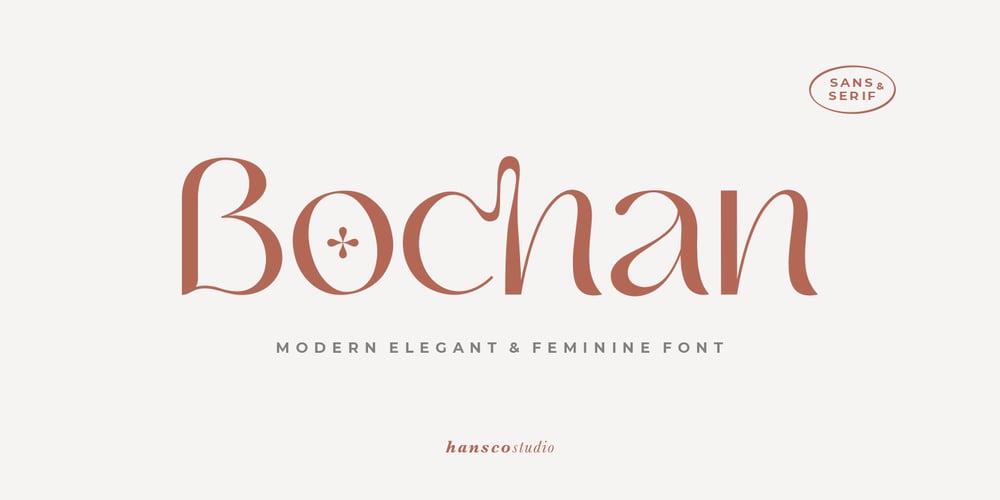
Bochan Font Family was designed by Burhan Afif and published by HansCo. Bochan contains 4 styles and family package options. Bochan is incredibly elegant and beautifully rounded sans serif and also include with serif version font that will add a timeless look to any design project!. Very suitable for logo, brand identity pack, packaging designs, wedding invitations, quotes, advertisements and many more..This font is PUA encoded which means you can access all of the glyphs and swashes with ease!Features : uppercase & lowercase numbers and punctuation multilingual alternates PUA encoded We highly recommend using a program that supports OpenType features and Glyphs panels like many of Adobe apps and Corel Draw, so you can see and access all Glyph variations.Tutorial how to Install & use Alternate / Special Character : https://hanscostudio.com/tutorial/Enjoy!